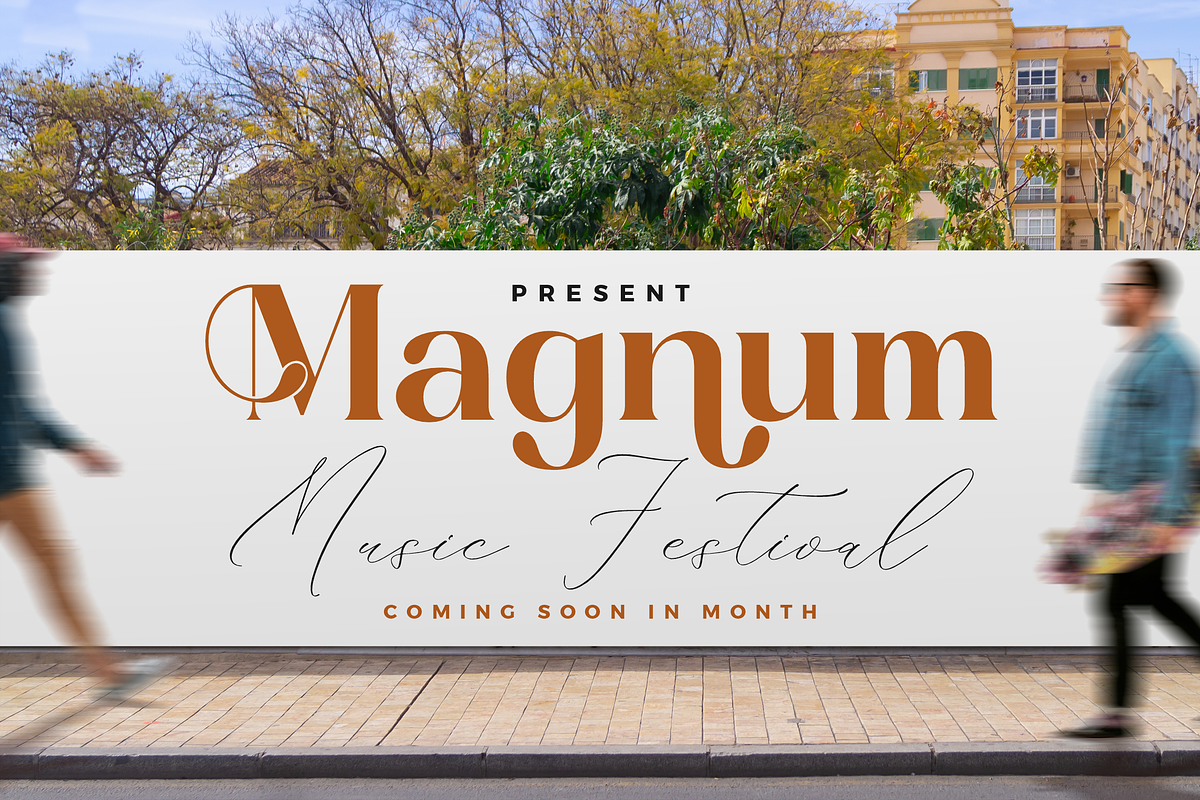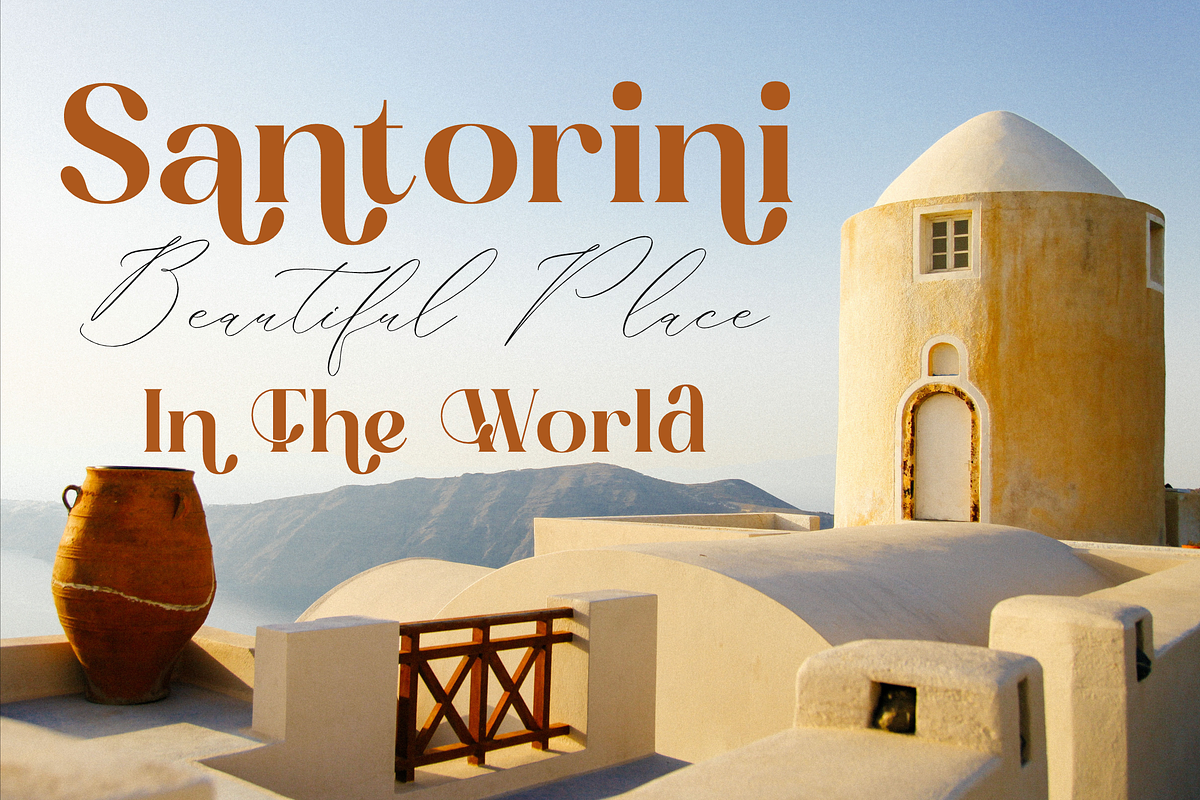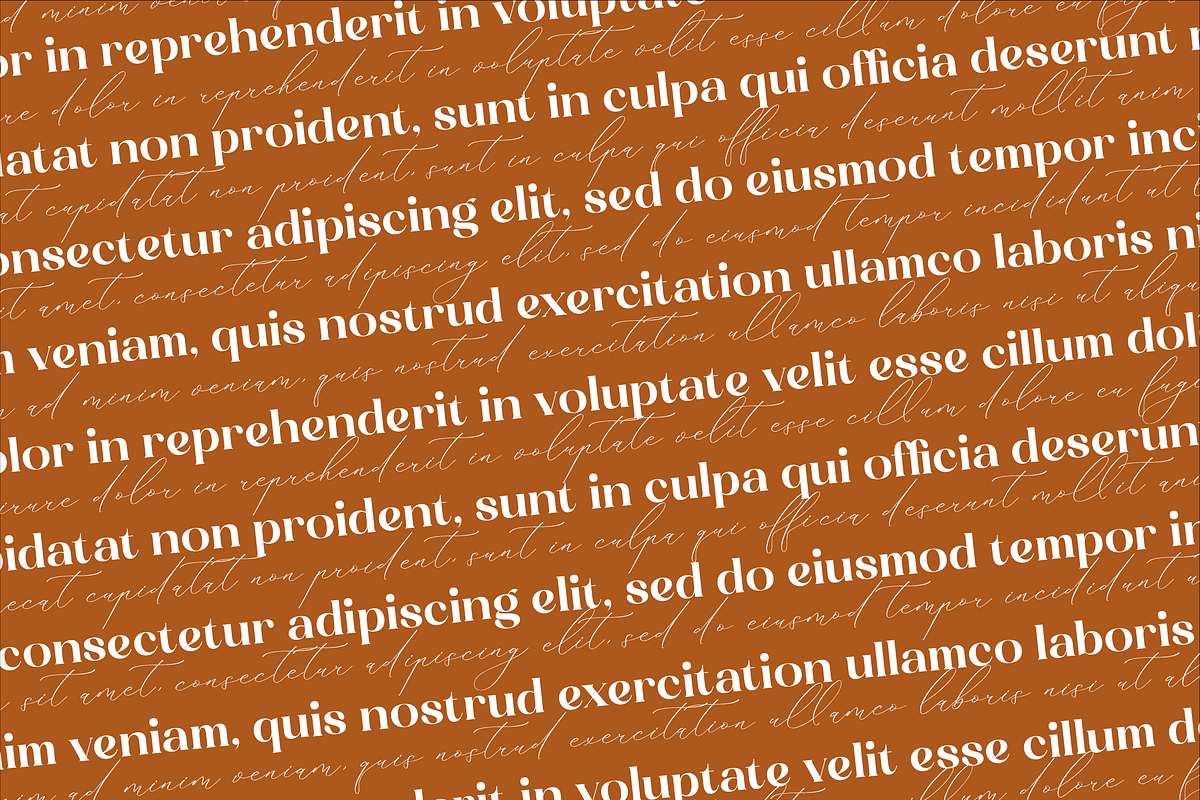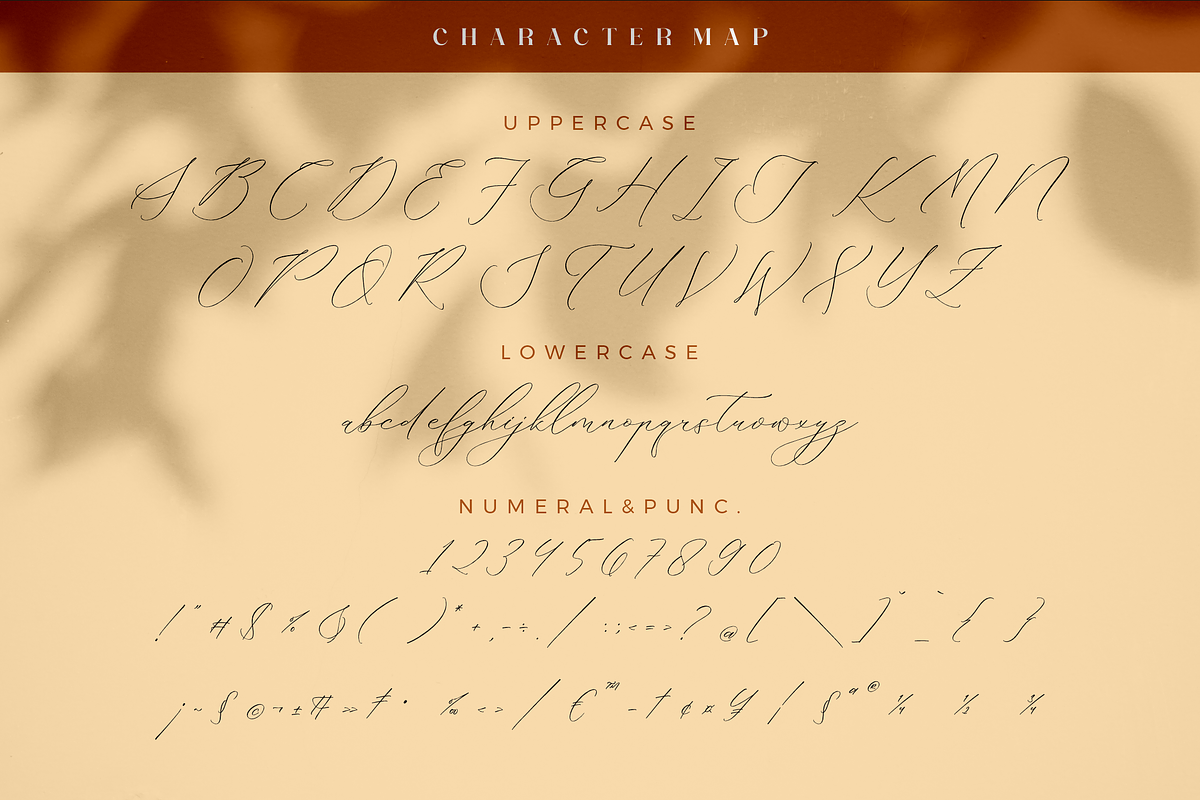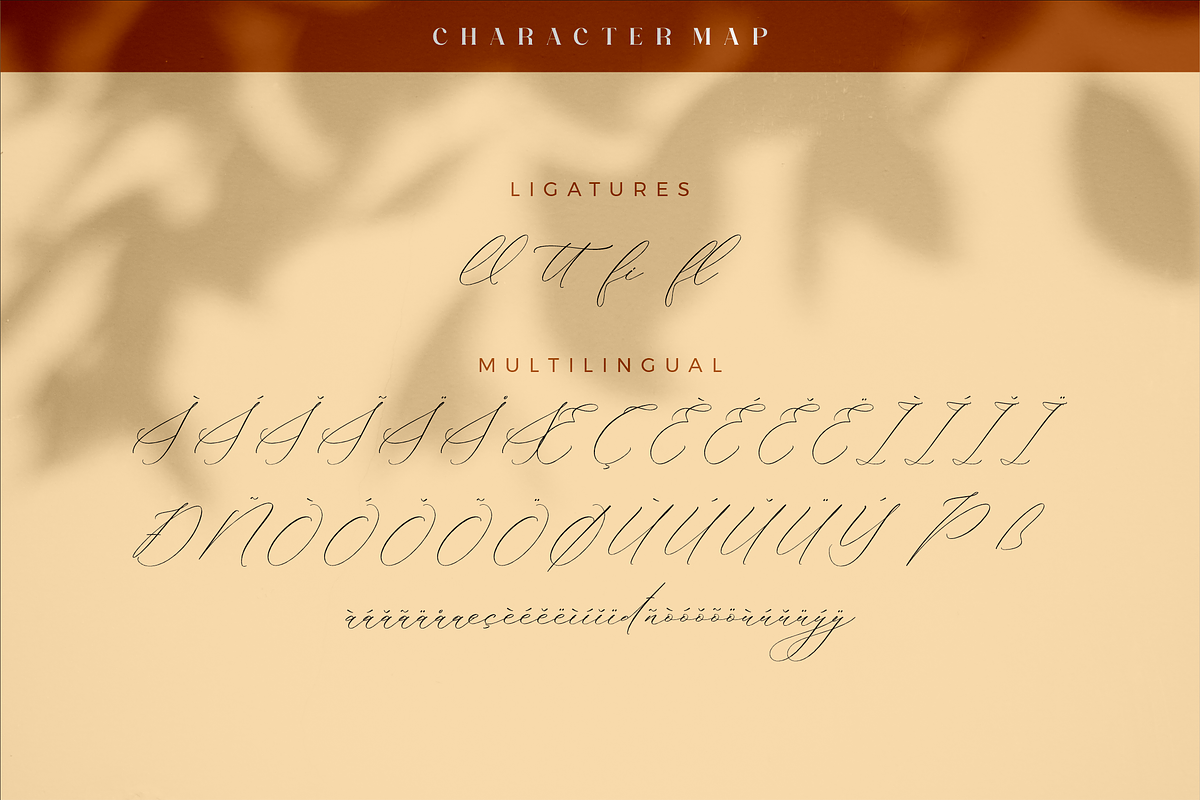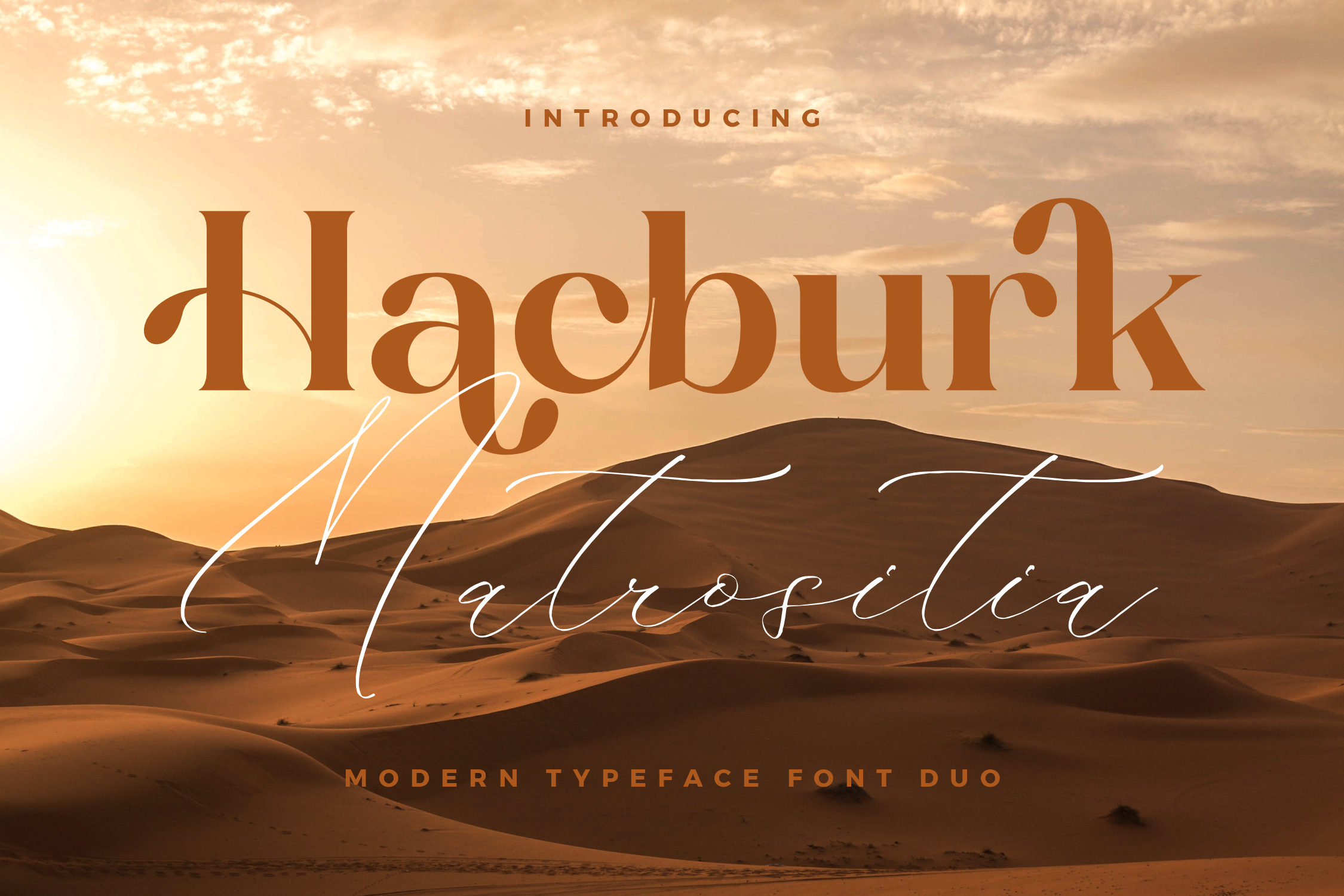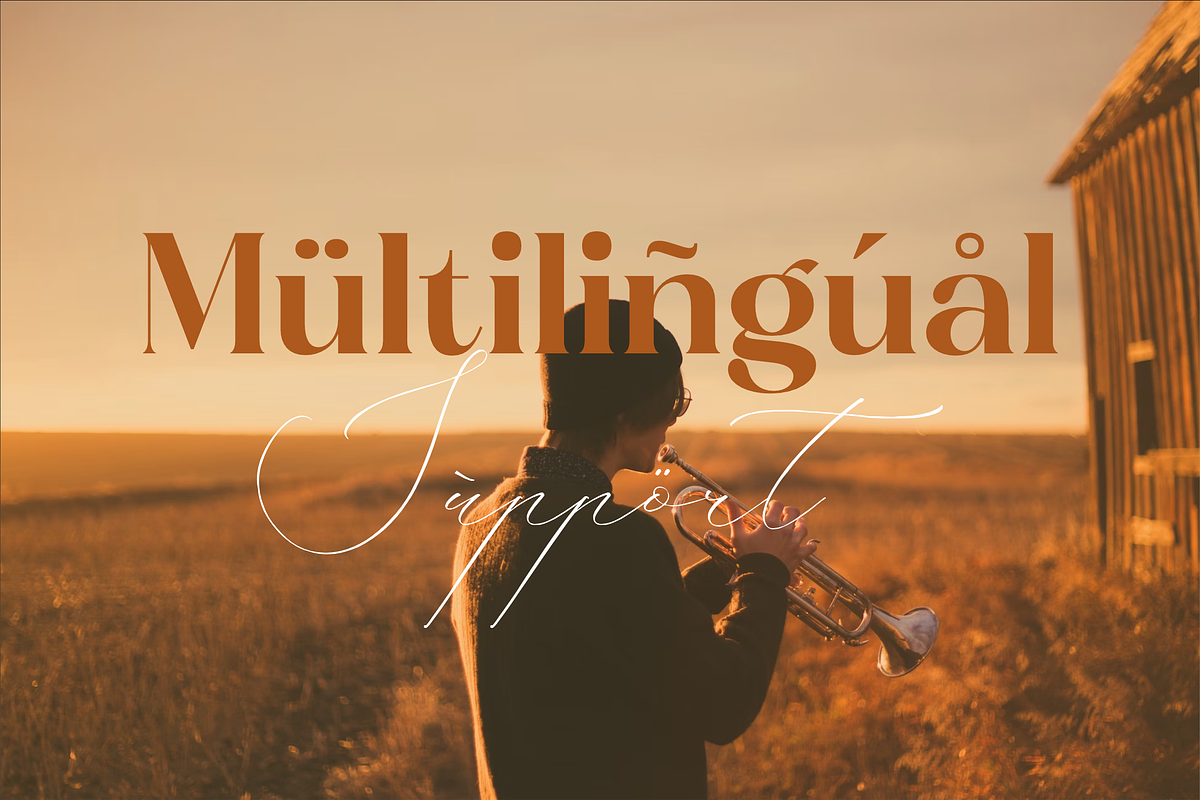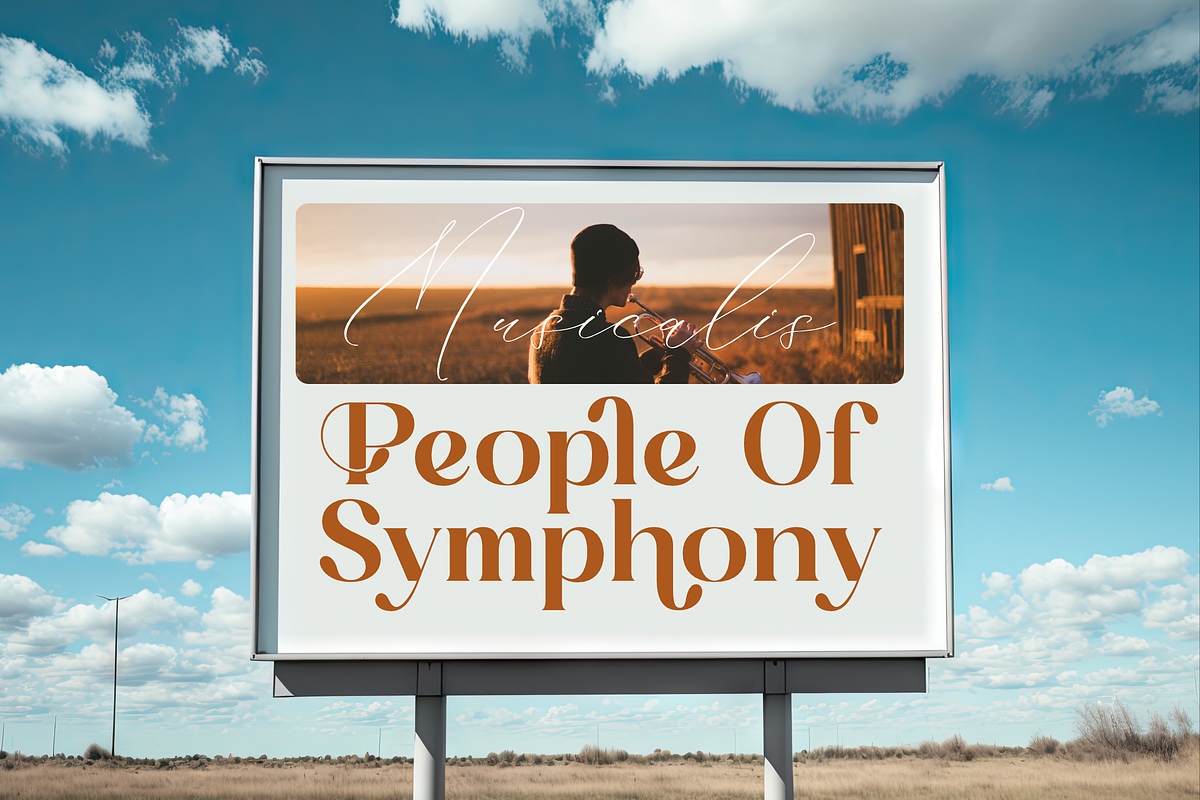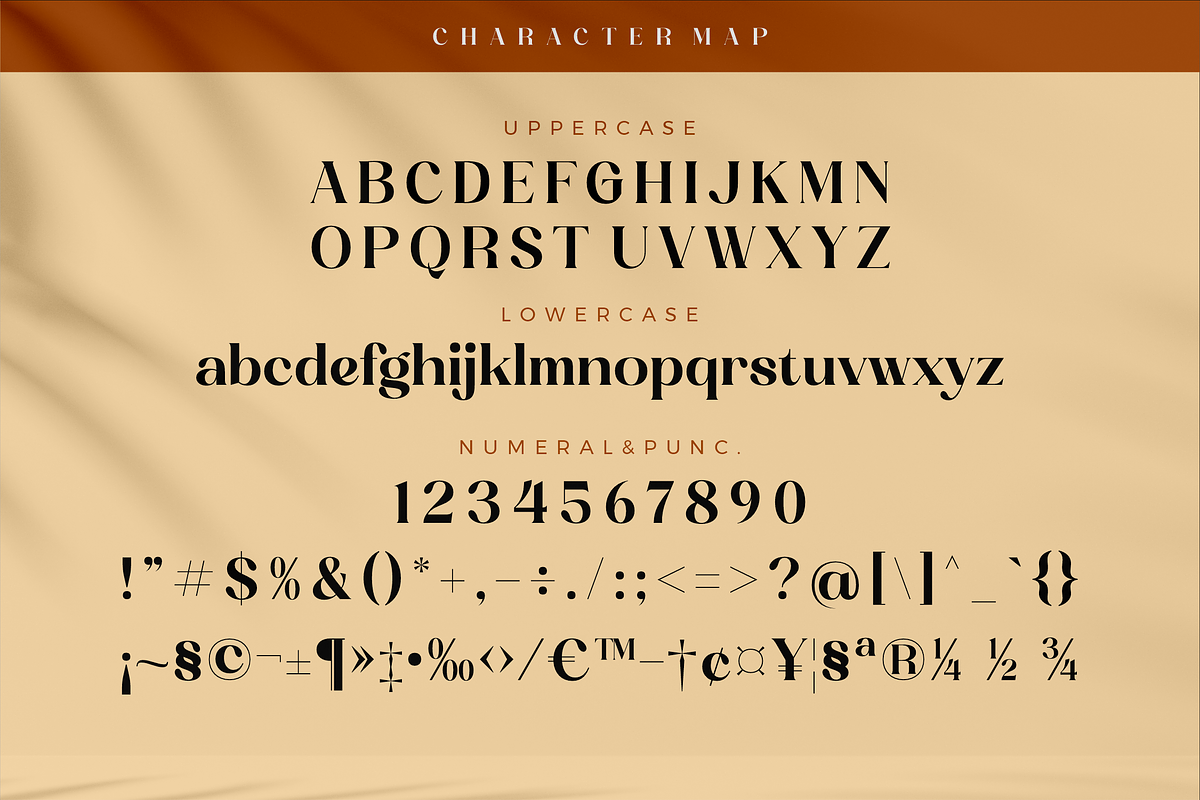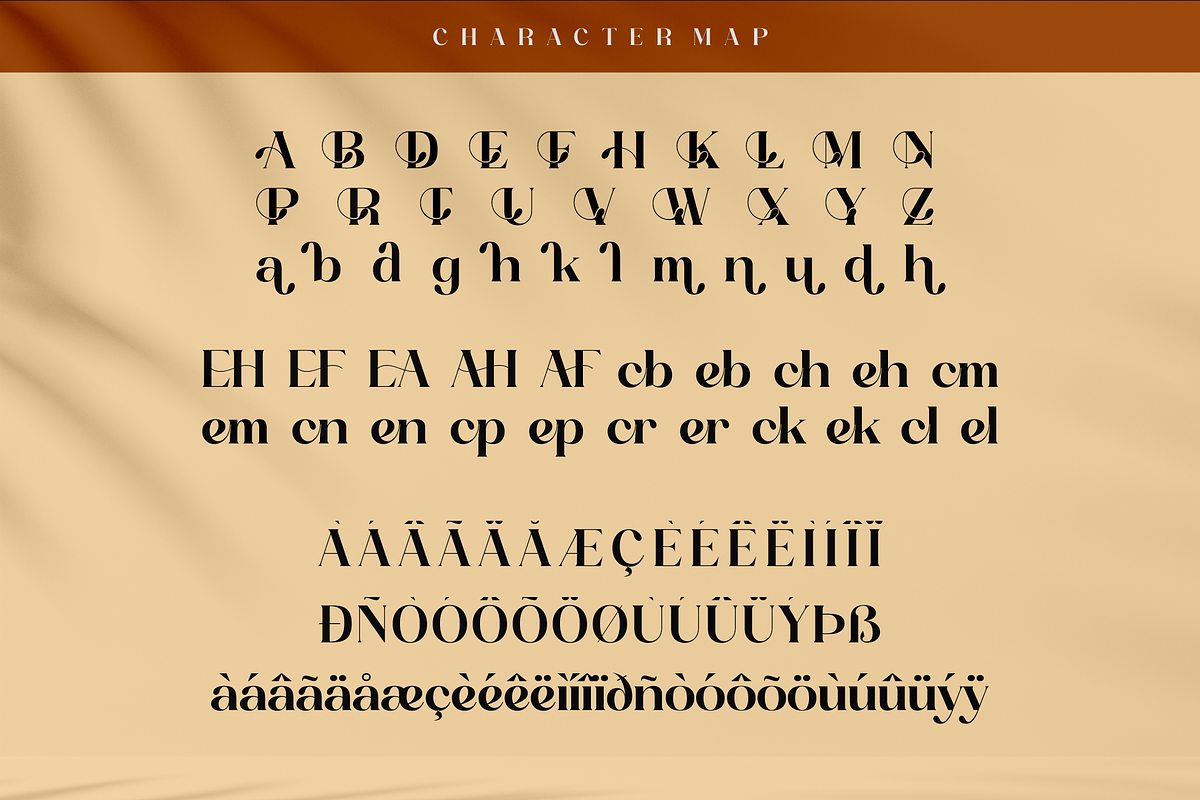
Hacburk Matrositia Modern Font Duo
Proudly present Hacburk Matrositia Font Duo , created by Storytype, A serif and script typeface that has own unique style & modern look. This typeface is perfect for an elegant & luxury logo, book or movie title design, fashion brand, magazine, clothes, lettering, quotes, and so much more.